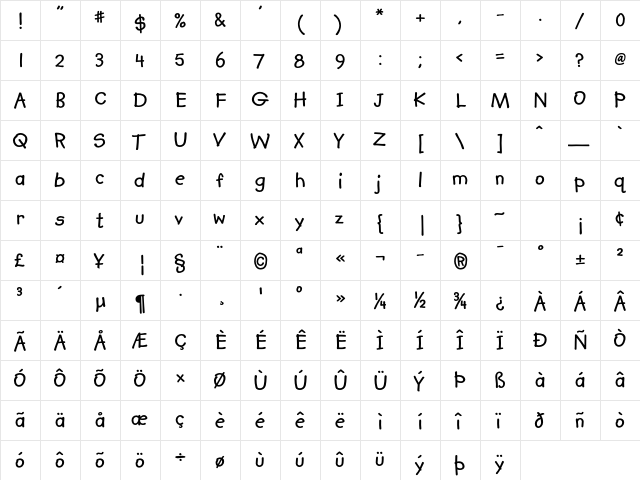
Kidprint MT Std Bold Font Preview
Kidprint MT Std Bold
Kidprint MT Std Bold Font Details
Design Context for Kidprint MT Std Typeface
Kidprint MT Std takes a measured approach to typography — its balanced proportions and neutral character make it a reliable workhorse for both digital and print work. Its bold stroke weight gives it real presence on the page.